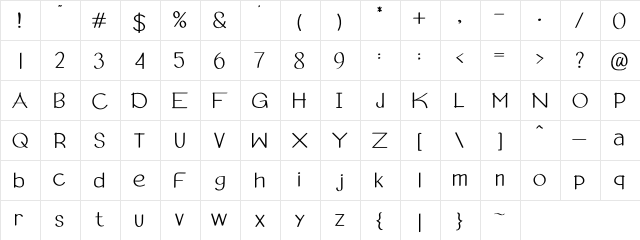
Aurista Regular
| Foundry | Frederik Aristaputra |
| Designer | Frederik Aristaputra |
Design Context for Aurista Typeface
Aurista is a composed and adaptable typeface that performs quietly and consistently across a wide range of design contexts.